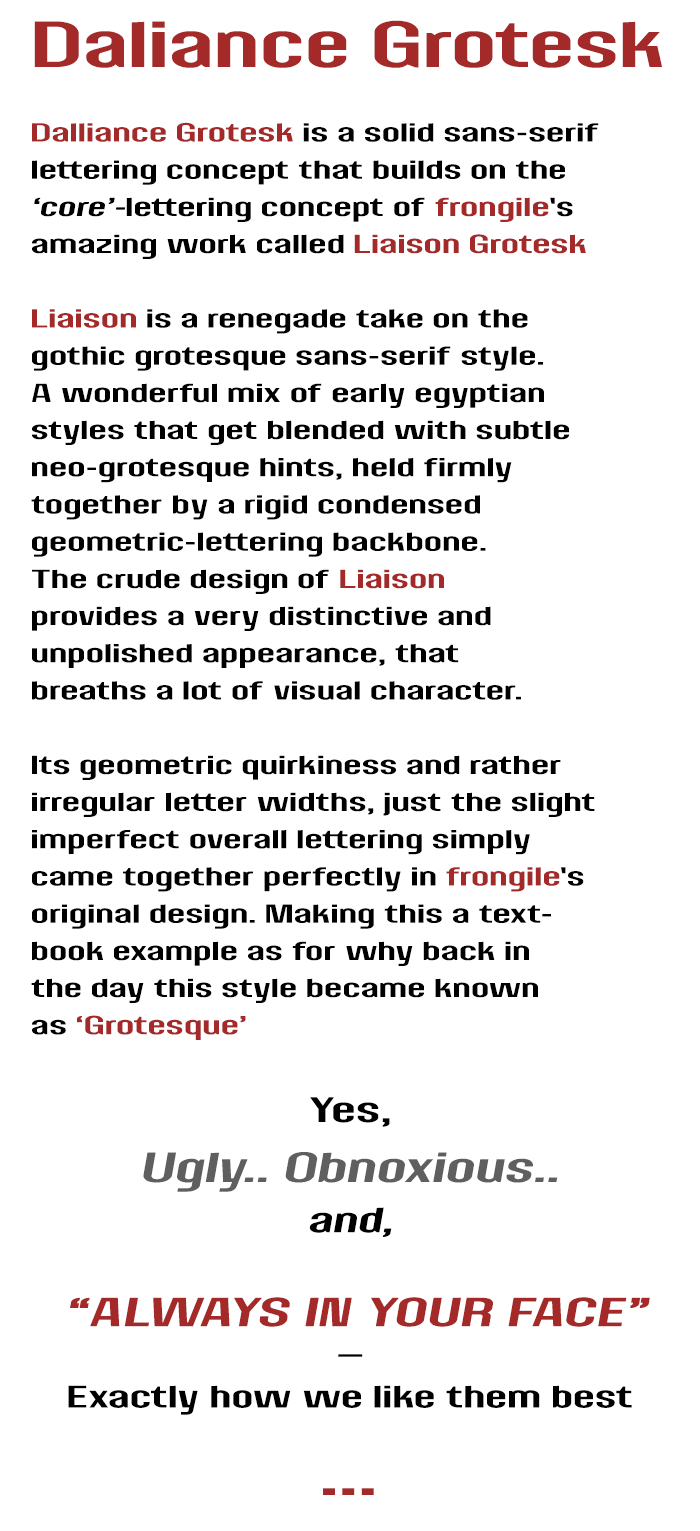
DALLIANCE GROTESK — Geometric gothic grotesque
Dalliance Grotesk is a solid sans-serif lettering concept that builds on the ‘core’-lettering concept of frongile's amazing work called Liaison Grotesk
Liaison is a renegade take on the gothic grotesque sans-serif style. A wonderful mix of early egyptian styles that get blended with subtle neo-grotesque hints, held firmly together by a rigid condensed geometric letter-backbone. The crude design of Liaison provides a very distinctive and unpolished appearance, that breaths a lot of visual character.
Its geometric quirkiness and rather irregular letter widths, just the slight imperfect overall lettering simply came together perfectly in frongile's original design. Making this a text-book example as for why back in the day this style became known as ‘Grotesque’.
Yes, Ugly.. Obnoxious.. and... ‘Always in your face’
— Exactly how we like them best...
Dalliance Grotesk is the result of harvesting some of that original soul personality as was seen in Liaison and borrows it for extrapolation into a different font.
While Dalliance tried to preserve much of the overall letter-backbone structures from the original source, its primary aim was, to push towards a more polished finishing touch.
Simplified letters that were stripped of most quirks and bits, keeping only their rough shape intact.
In addition, all curved letter-parts were fully re-build with smoother contours and more natural flowing curve transitions. The spurred top and bottom stroke-stops for the lower-case letters had been changed so that the top now slightly differ from the bottom spurs (different tapered angle). Also the top spurs all have been slightly lowered to make them sit a tad bit bellow the x-height of the font.
Main modification revolved more or less around achieving cleaner overall text rendering and better optimization for body copy in small point sizes. In the process of getting there, I carefully adapted each glyph equipped fit, to appropriately accommodate all the ty(pro)graphic goodness one can possibly hope to pull out of a Fontstruct.
Smooth (near)-Bézier contour quality, optical compensating correction adjustments, such as overshoots, small vertical stressed contrast and improved stroke joints. Also the font's proportions for height to weight ratio has drastically changed.
— Utilizing sort-of an attenuate 'knockoff' to frongile's original concept for his Liaison Grotesk.
Updated the font some more:
• Spine for both (Ss) have been thickened to better match the font.
• Added 1653 (most) important kern pairs.
• Added some ligatures
• Optimized proportion even more for small point size text rendering (now the smallest still fully crisp looking size is 10pt).